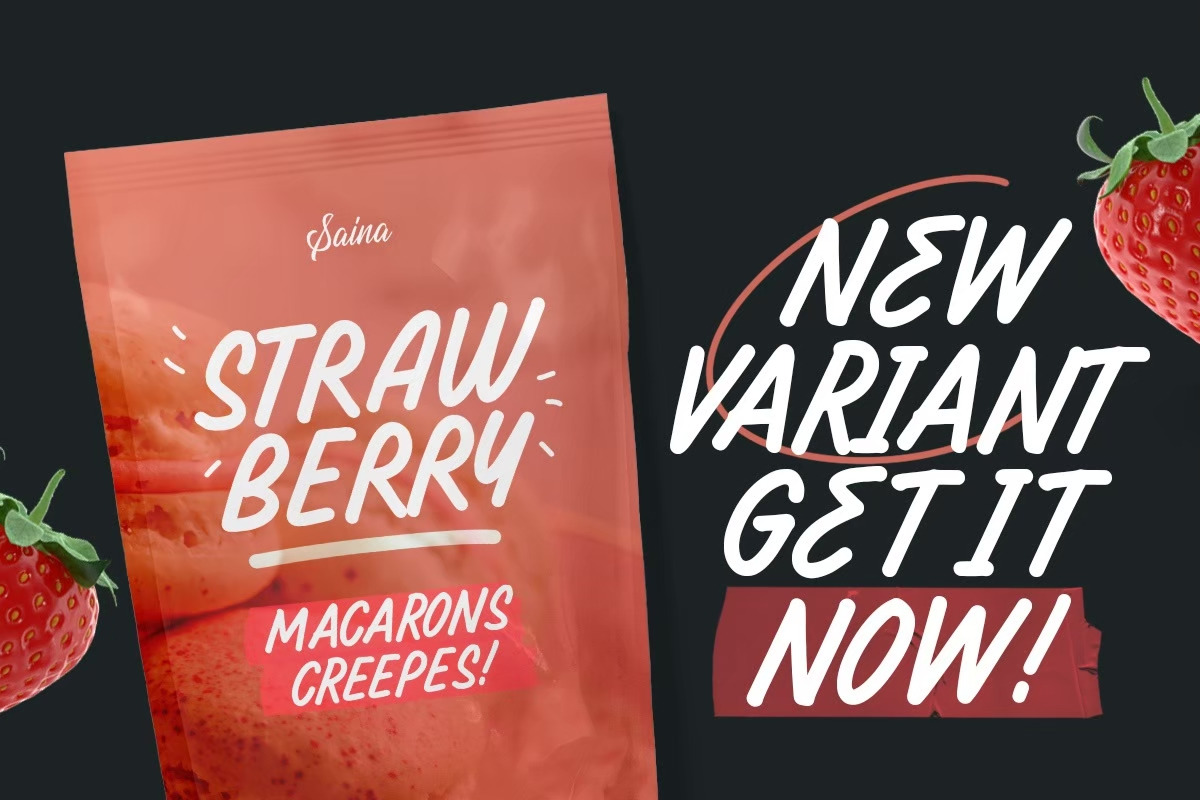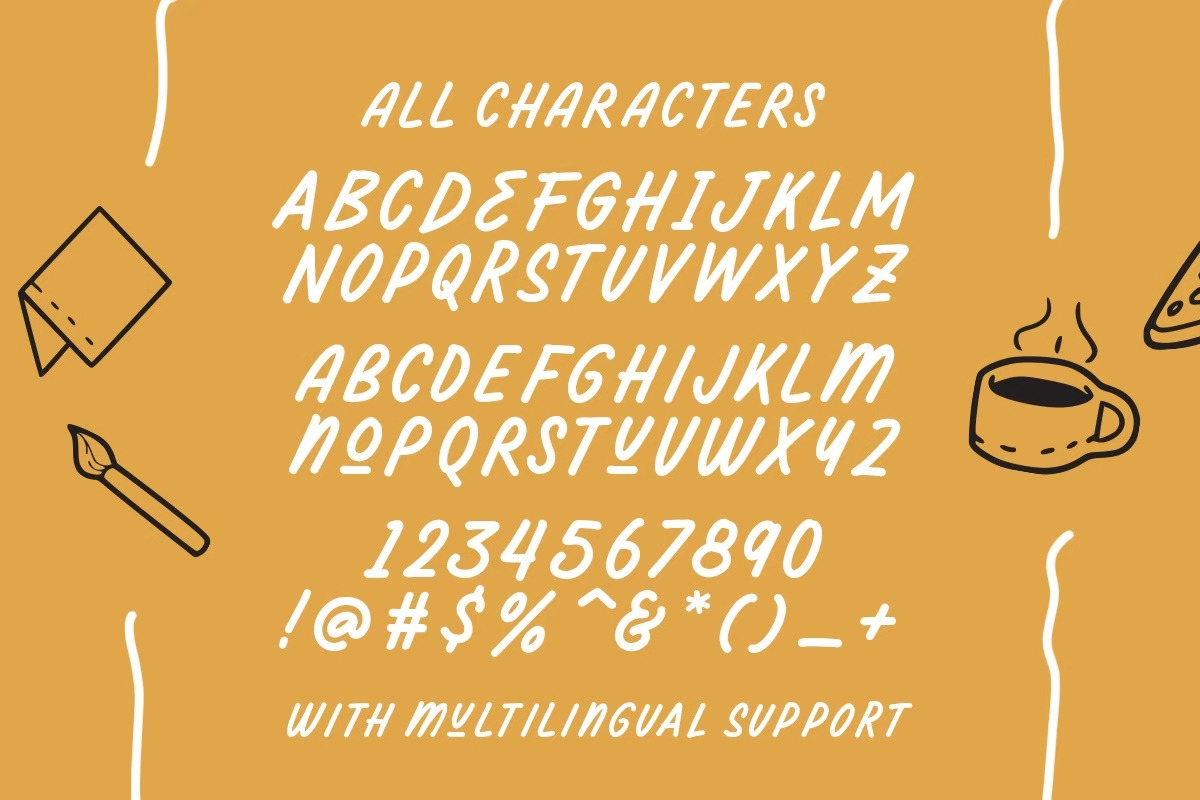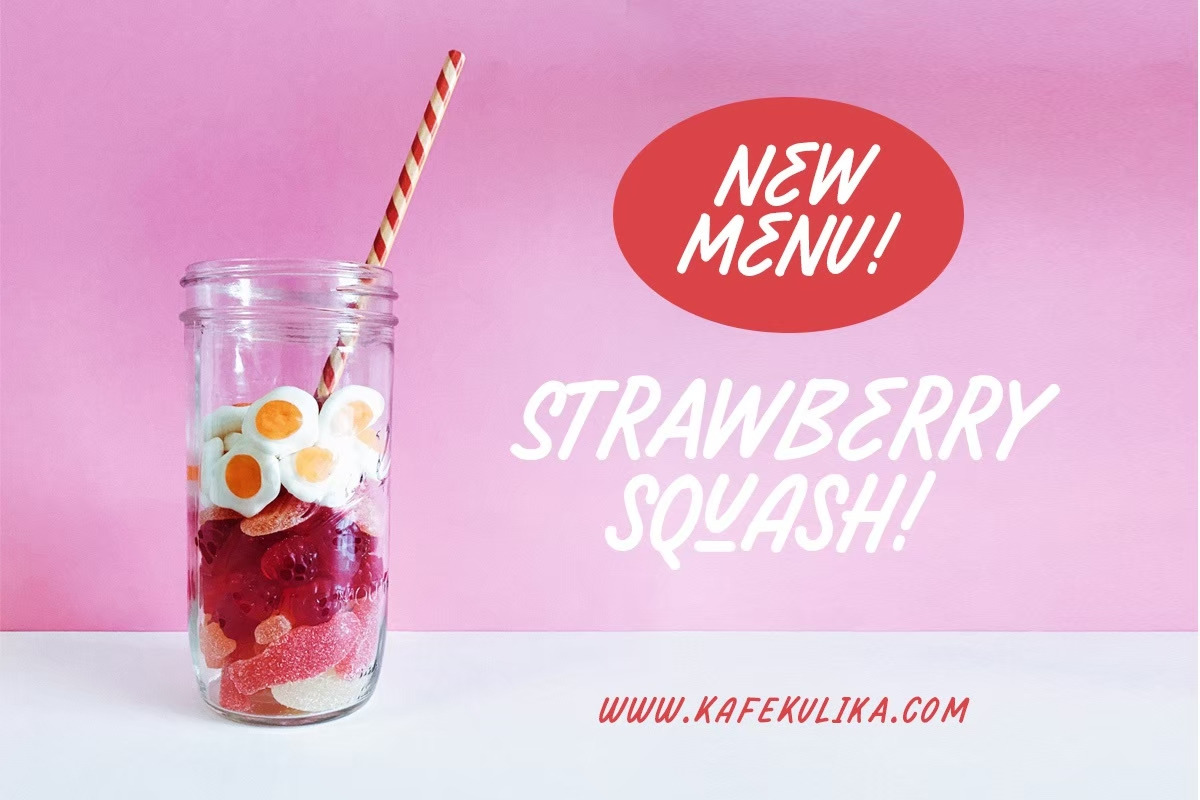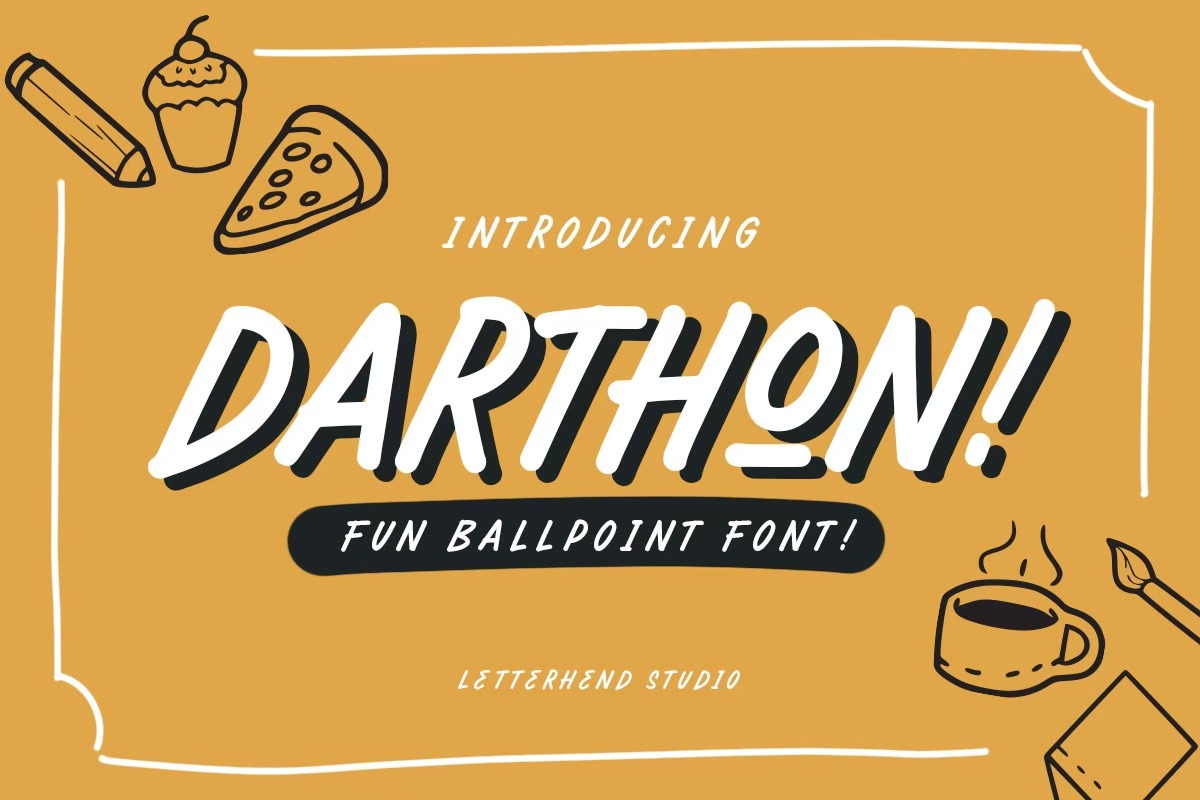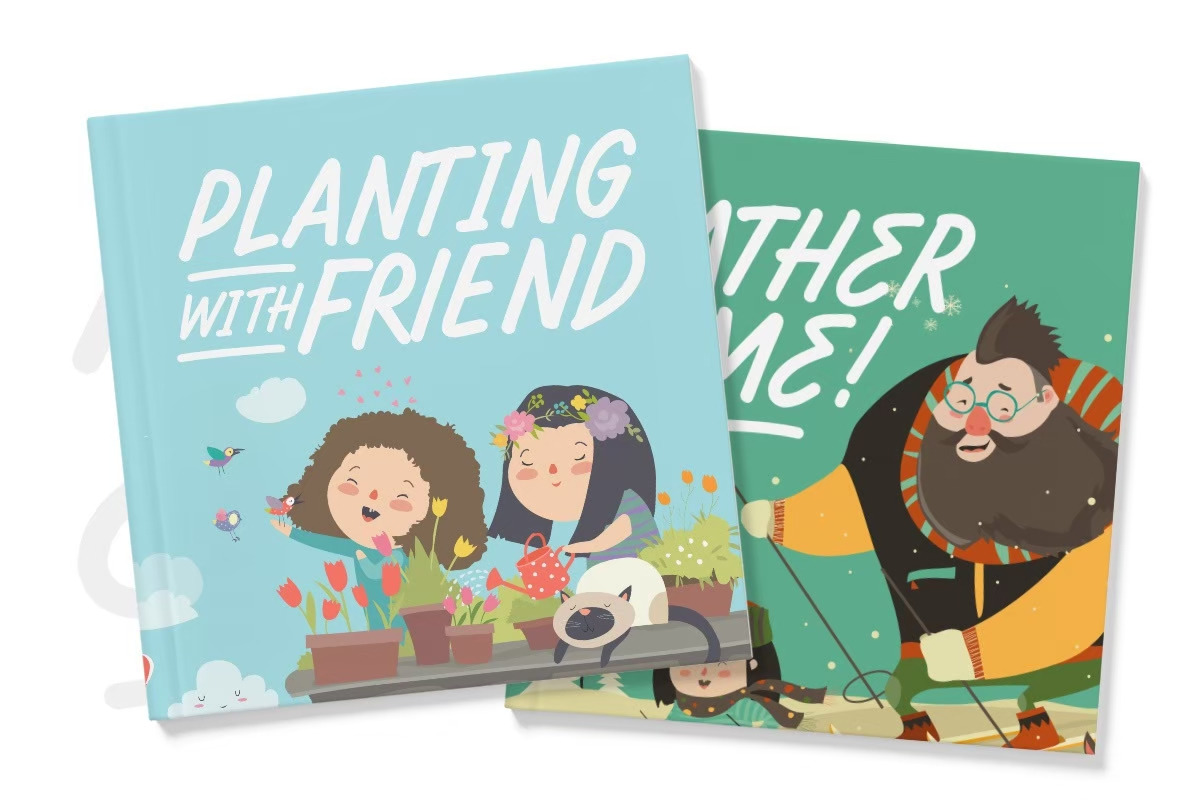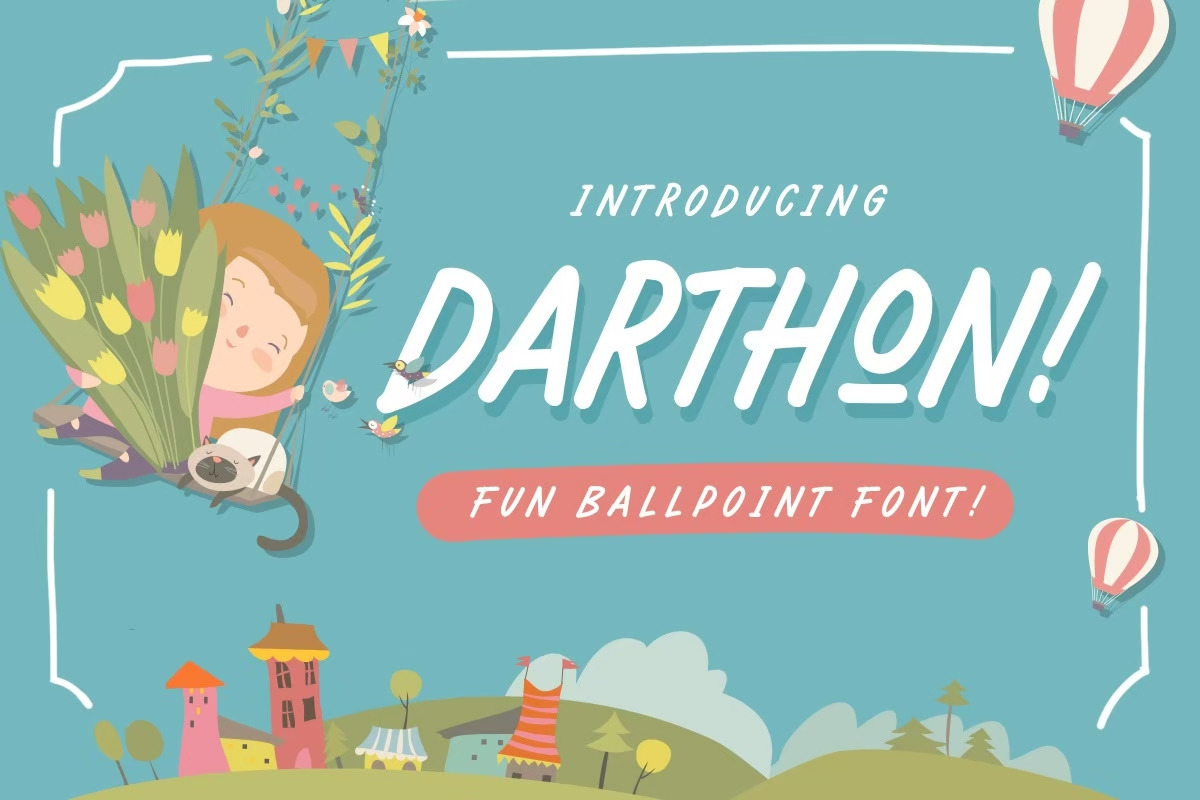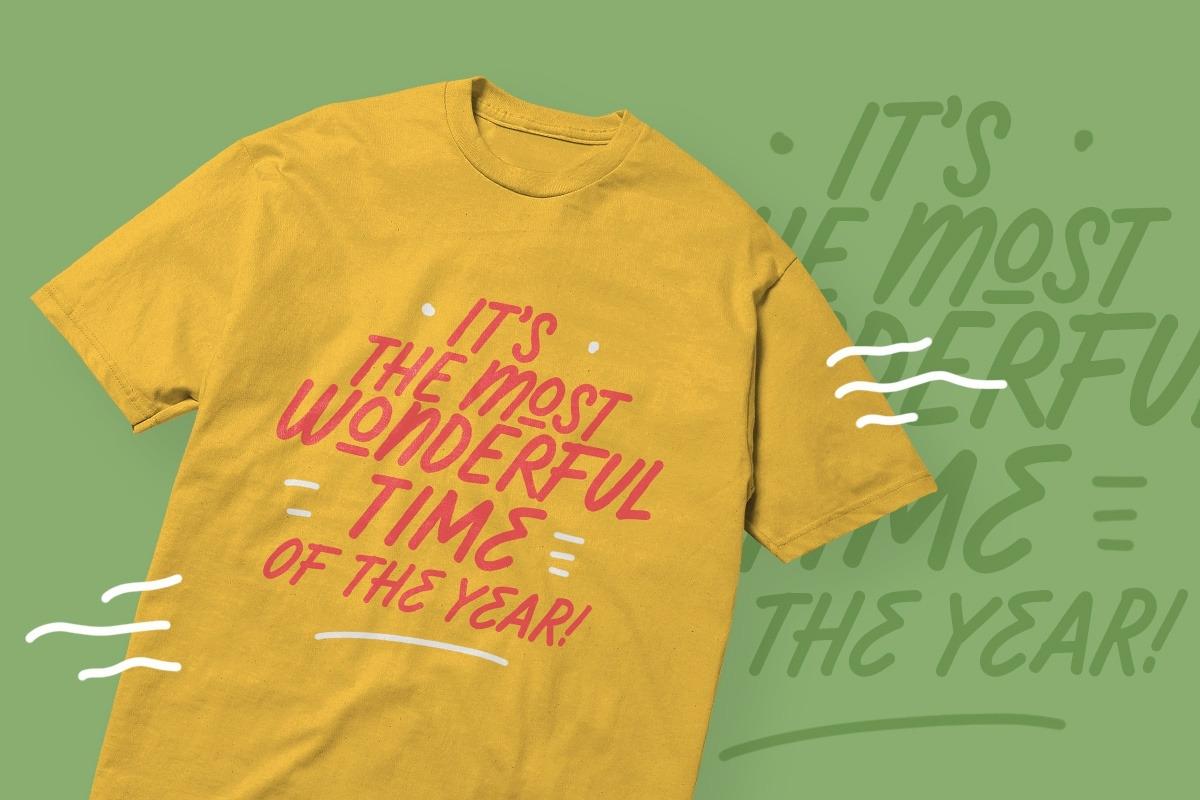
Darthon! - Fun Ballpoint Typeface
Darthon is a casual display font with stroke ballpoint-like style. This font perfectly made to be applied especially in logo, and the other various formal forms such as invitations, labels, logos, magazines, books, greeting / wedding cards, packaging, fashion, make up, stationery, novels, labels or any type of advertising purpose.
- alternates